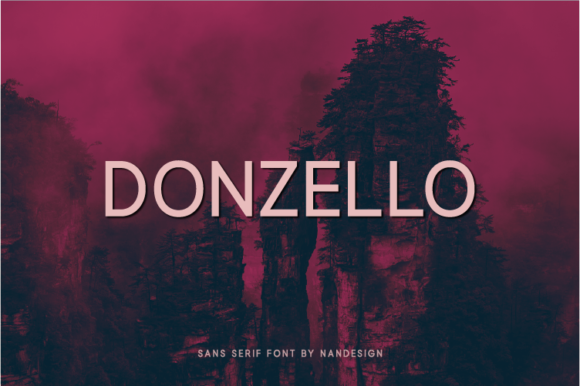
**Introducing Donzello: The Font that Embodies Elegance, Simplicity, and Versatility**
In the realm of digital design, fonts hold sway as the unsung heroes. They possess the power to elevate ordinary words into masterpieces, transforming humdrum text into captivating narratives. Introducing Donzello, a sans serif font that embodies the essence of elegance, simplicity, and versatility.
Donzello is the brainchild of Nan Design, a renowned name in the world of typography. This font exudes simplicity in its very essence, characterized by clean lines, unadorned curves, and a timeless aesthetic that transcends fleeting trends. Donzello's understated beauty makes it an ideal choice for a wide array of design endeavors, from sophisticated logos to eye-catching invitations.
But do not be deceived by its simplicity, for Donzello is a font of remarkable versatility. Its inherent adaptability allows it to seamlessly integrate into any design concept, whether you seek a touch of understated elegance or a bold statement.
**Unleash the Creative Potential of Donzello:**
**Logos that Leave a Lasting Impression:** Donzello's clean lines and timeless appeal make it the perfect choice for crafting logos that embody sophistication and professionalism. Its ability to convey both strength and grace ensures that your brand's identity will leave an unforgettable mark.
**Invitations that Enchant:** Imagine sending out invitations adorned with Donzello's elegant strokes. Its understated beauty will evoke a sense of anticipation and excitement, setting the tone for an unforgettable event.
**Headings that Command Attention:** When you want your headlines to demand attention without overpowering your content, Donzello is your font of choice. Its clean lines and balanced proportions create headings that are both attention-grabbing and effortlessly readable.
**T-shirts that Make a Statement:** Unleash your creativity by emblazoning your custom t-shirts with Donzello's timeless style. Whether you prefer bold statements or subtle sophistication, Donzello effortlessly elevates your designs to new heights.
**Letterhead that Exudes Professionalism:** For businesses seeking to make a lasting impression, letterhead is an essential marketing tool. Donzello's understated elegance and readability make it the ideal choice for creating letterhead that conveys professionalism and attention to detail.
**Signage that Guides and Inspires:** From elegant storefronts to inspiring office spaces, Donzello's versatility extends to the realm of signage. Its clean lines and readability ensure that your messages will be conveyed with clarity and impact.
**Labels that Enhance and Inform:** Elevate your product packaging with labels that feature Donzello's understated beauty. Its ability to convey information clearly and concisely while adding a touch of sophistication will enhance your products' appeal.
**News that Informs and Engages:** Donzello's readability and versatility make it an excellent choice for news articles, both online and in print. Its ability to present information clearly and engagingly ensures that your readers will be captivated from start to finish.
**Posters that Captivate:** Unleash your creativity by designing posters adorned with Donzello's timeless elegance. Its ability to convey bold statements and detailed information makes it the perfect choice for creating posters that demand attention.
**Badges that Create a Sense of Community:** Foster a sense of belonging and shared identity with badges that feature Donzello's unique style. Its versatility allows for the creation of badges that reflect the diverse personalities and interests within your community.
**And So Much More:** The possibilities with Donzello are endless. Its simple yet captivating nature makes it an indispensable tool for any designer seeking to create a wide range of visually appealing content.
**Donzello: The Font that Empowers Your Creativity**
Donzello is more than just a font; it is a creative tool that empowers you to express yourself with elegance, simplicity, and versatility. Whether you are a seasoned designer or just starting your creative journey, Donzello will elevate your designs to new heights. Experience the transformative power of Donzello today and let your creativity soar.